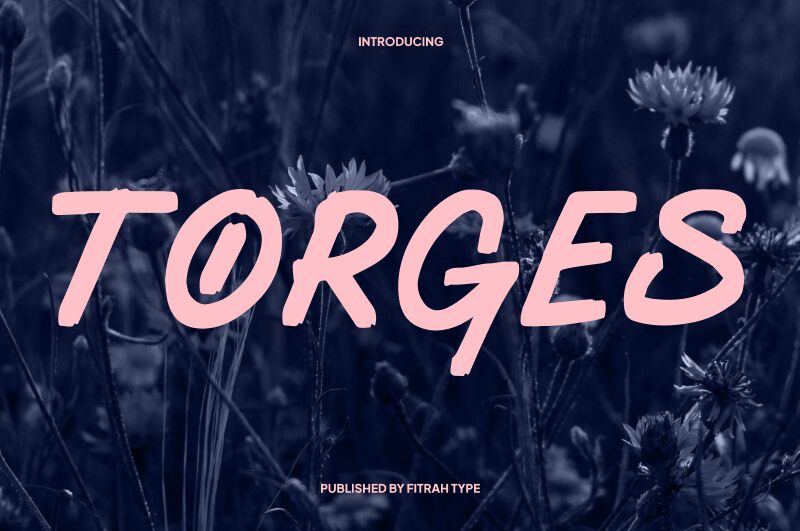
Torges font, crafted by Fitrah Type, embodies the essence of handwritten charm with its inviting strokes and playful flair. This font stands out with its whimsical curves and lively forms, exuding a warm yet dynamic aesthetic that captures attention effortlessly. The boldness of certain letters adds a striking contrast, making it perfect for headlines and standout text, while its fluidity lends an air of casual elegance.
Ideal for creative projects, Torges is versatile enough to enhance branding materials, invitations, and social media graphics. Its unique character feels personal and approachable, effortlessly bridging formalities with a touch of whimsy. Whether used for warm home decor labels or engaging marketing content, Torges strikes the perfect balance between style and readability, inviting viewers into a world rich in creativity.